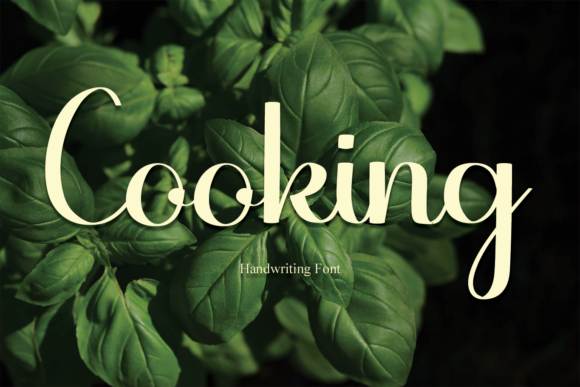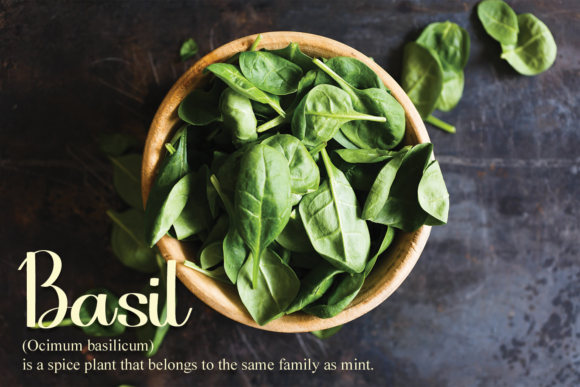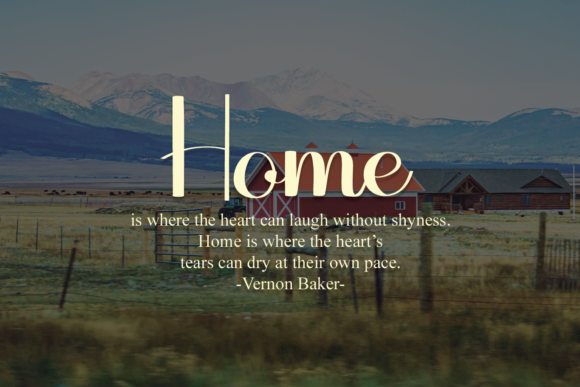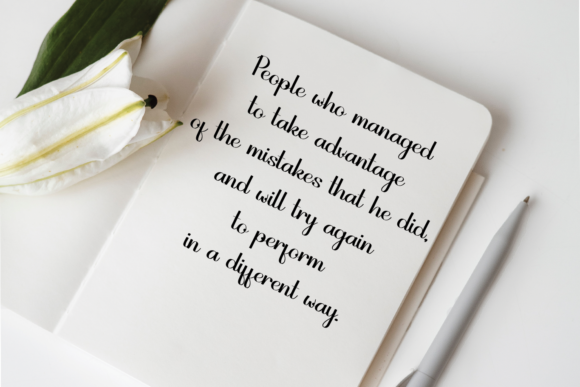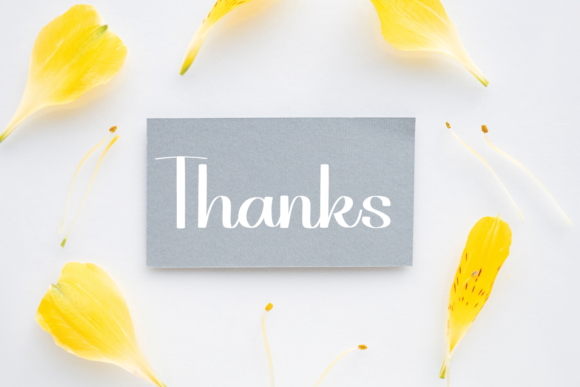
Cooking Font
About Cooking Font
Cooking is a chic and refined script font that emanates sophistication and elegance. Its stylish alternates and ligatures make this font the perfect match for any creative project you wish to create! Add it to your designs, and notice how it makes them come alive!